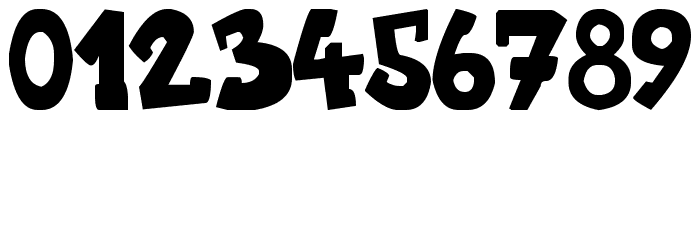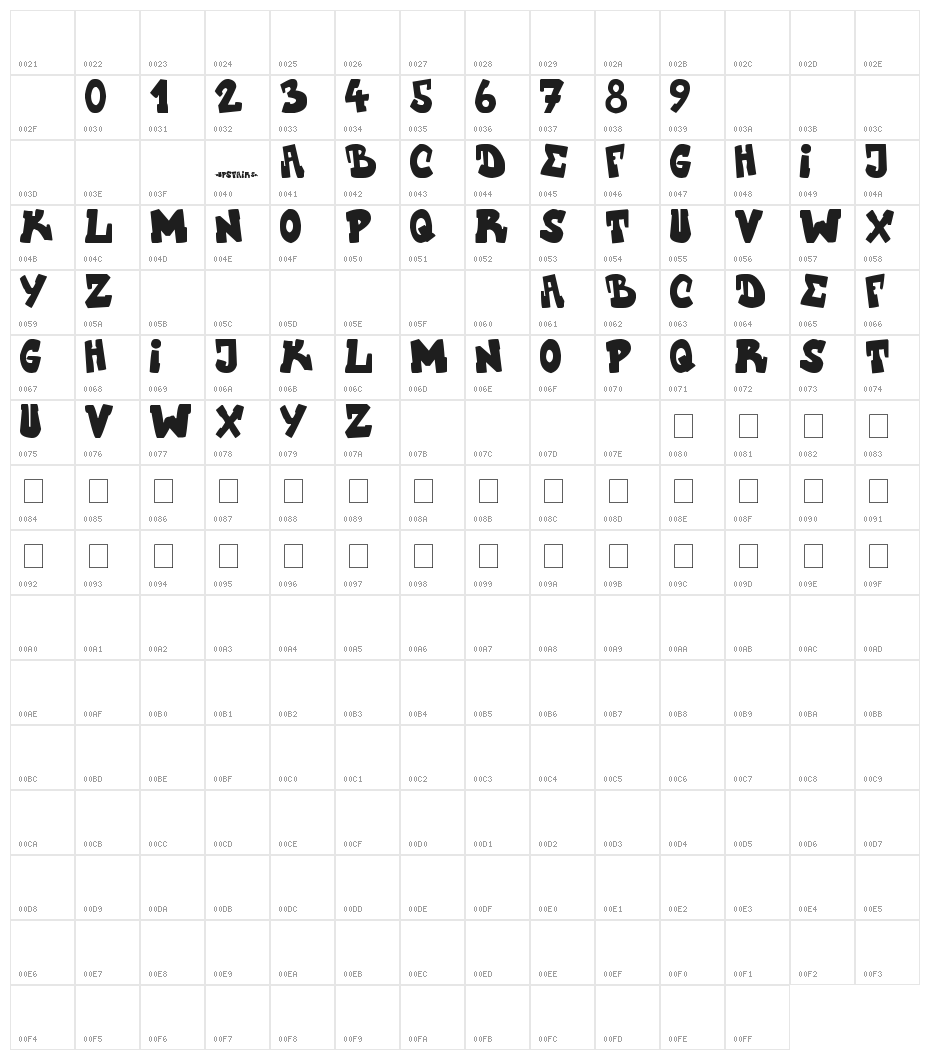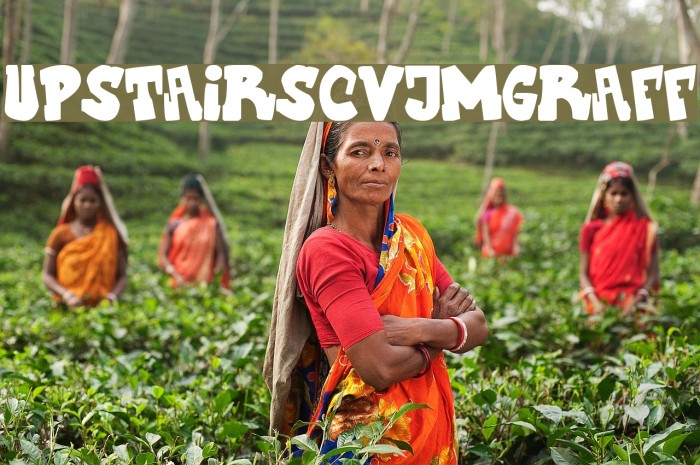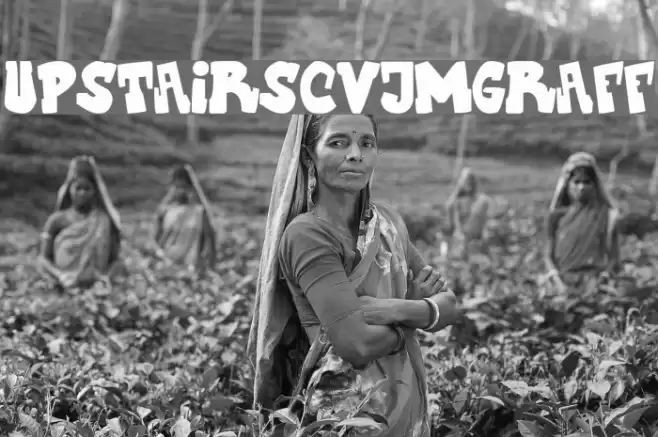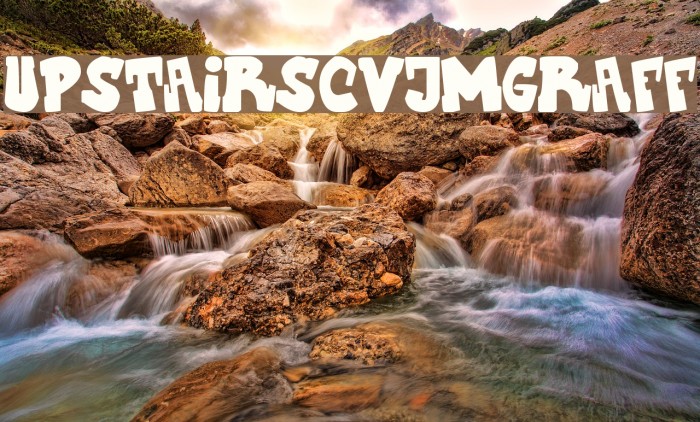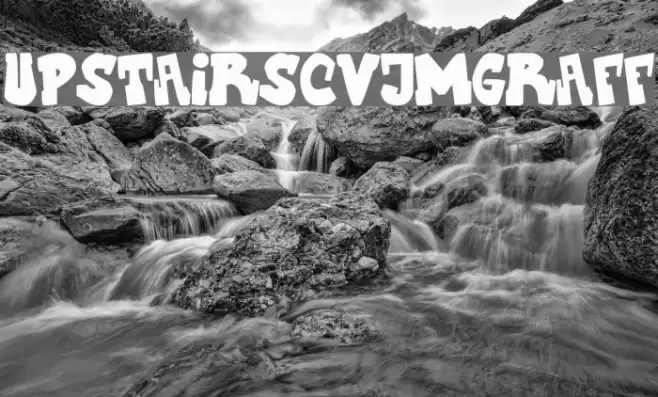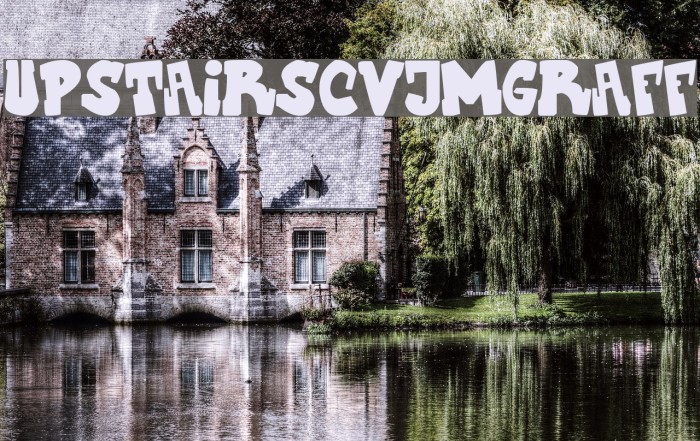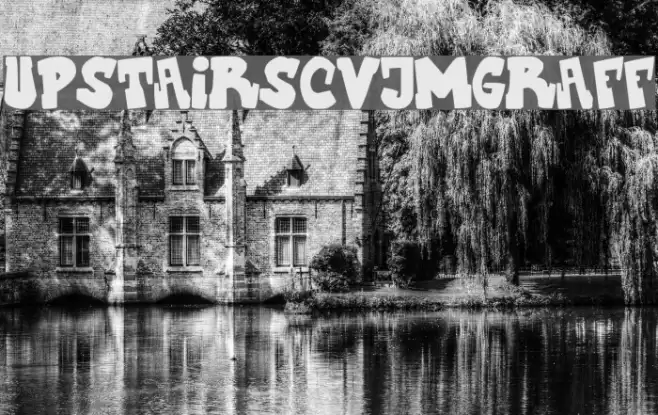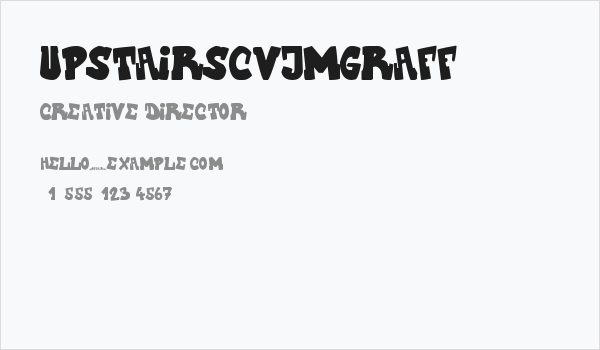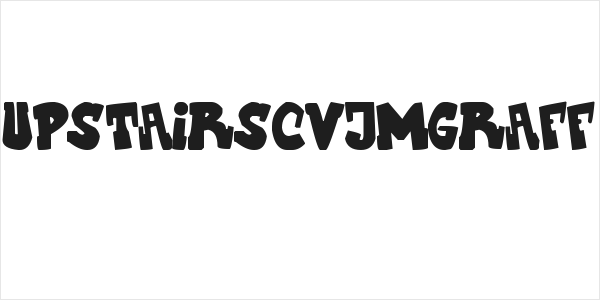
UpstairsCVJMgraff Font
UpstairsCVJMgraff Description
This font features a bold and playful style, characterized by its thick, rounded strokes and slightly irregular shapes. The letters have a whimsical, cartoon-like appearance, making them stand out with a sense of fun and creativity. The uppercase and lowercase letters maintain a consistent weight, contributing to a cohesive look. The numbers and special characters follow the same playful design, ensuring uniformity across all characters. This font's unique style is ideal for projects that require a touch of humor and lightheartedness.